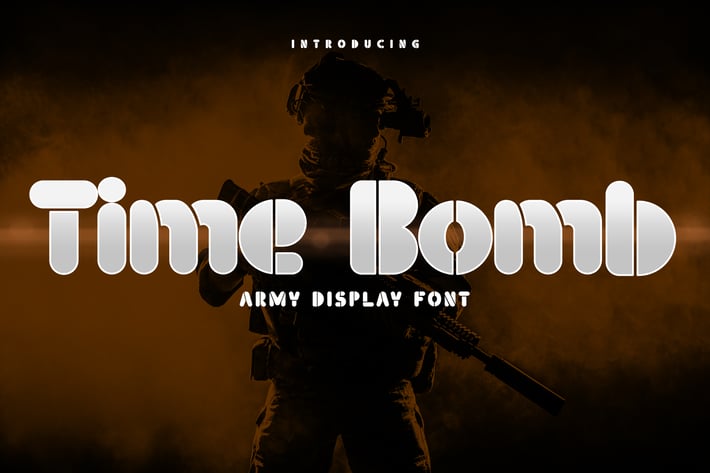
Time Bomb - Army Display Font
A rounded shape stencil font, that will bring your army theme project comes to live.
Suit perfectly for young age segmented magazine, poster, movie title, music poster, youtube covers, youtube thumbnails, social media page covers and so on...